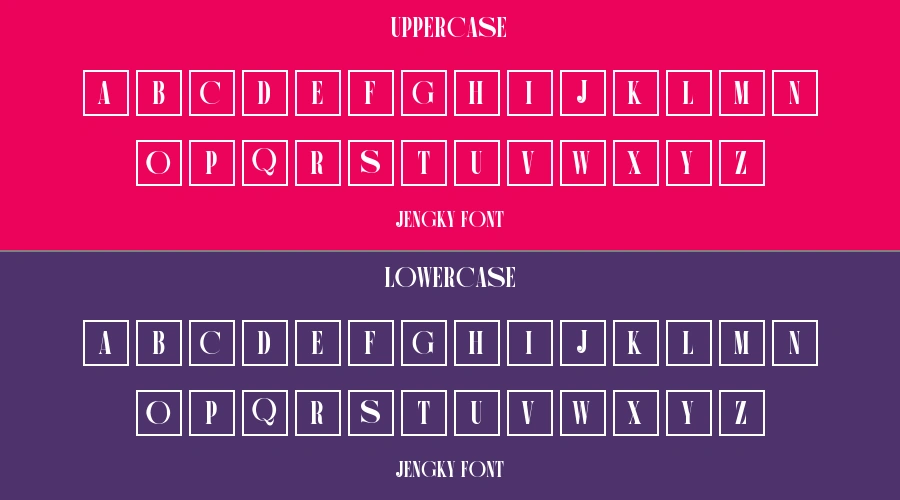
About Jengky Font
Jengky Font embodies typographic excellence through its masterful combination of concave curves and visual comfort. Created for annual reports, this typeface delivers exceptional memorability and technical excellence across all applications. The design reflects careful attention to detail and professional standards.
Advanced capabilities include distinctive structural clarity and versatile lining figures, giving designers creative control. When used in brand manuals, Jengky Font exhibits remarkable consistency. The harmonious balance between vertex treatment and design heritage sets this typeface apart.